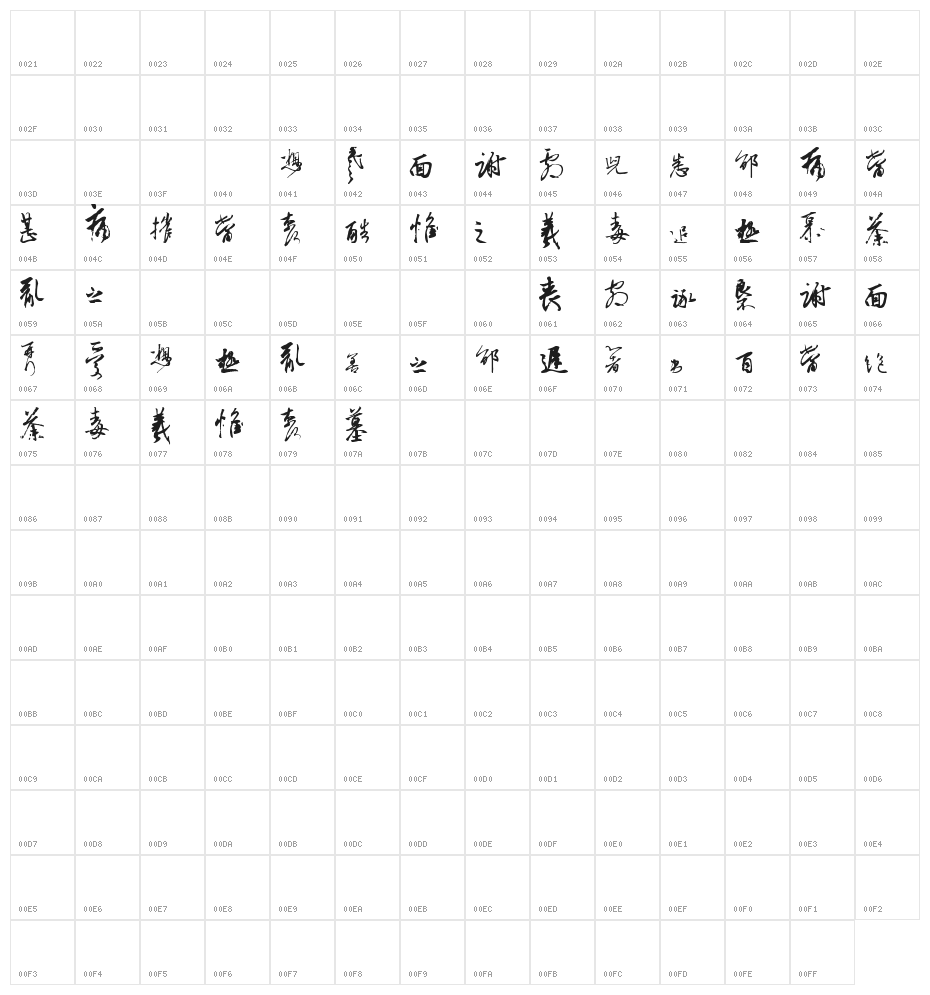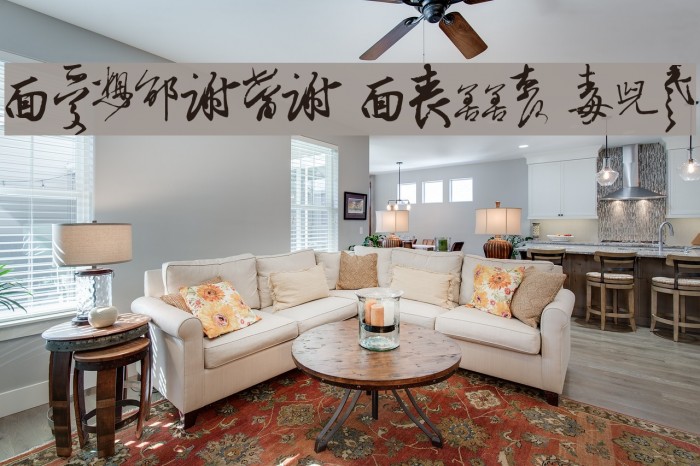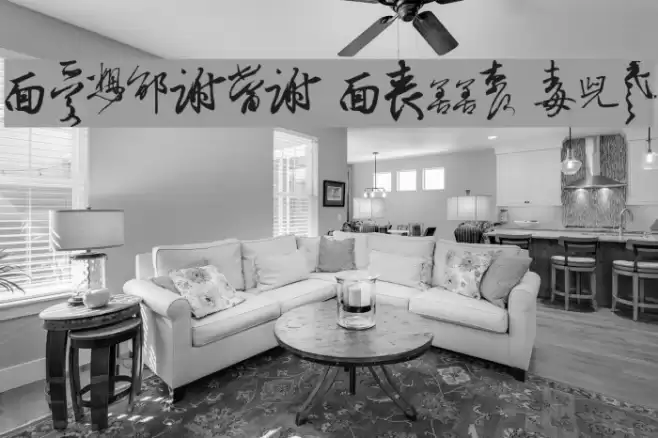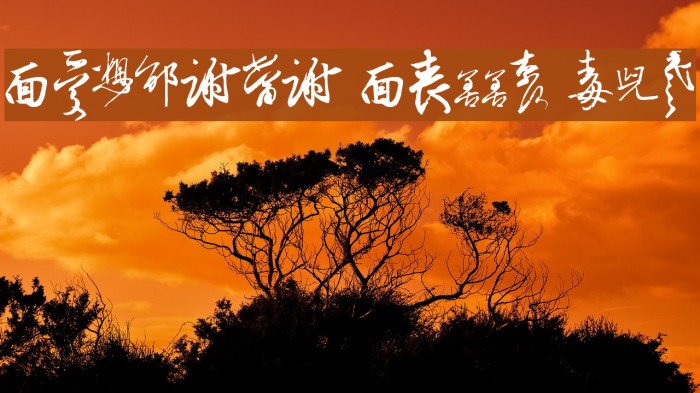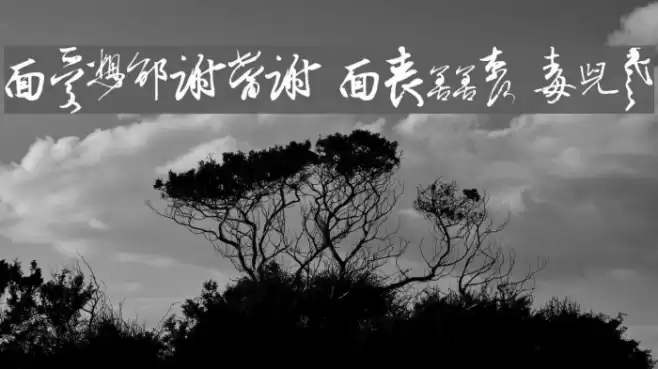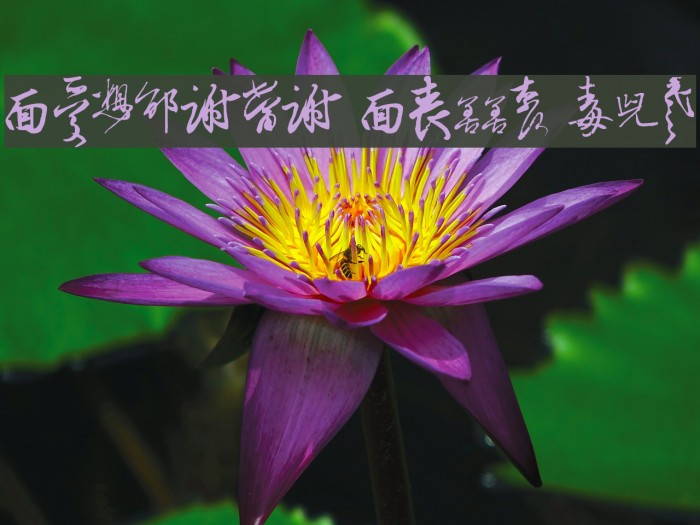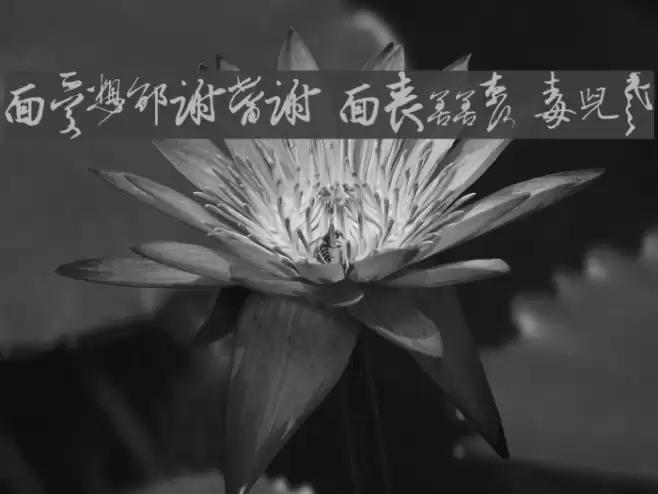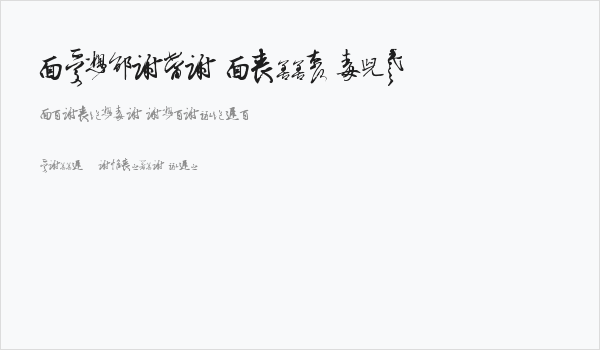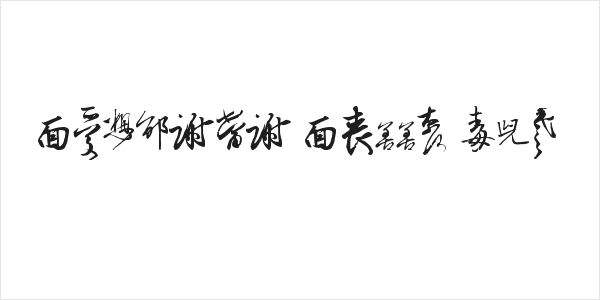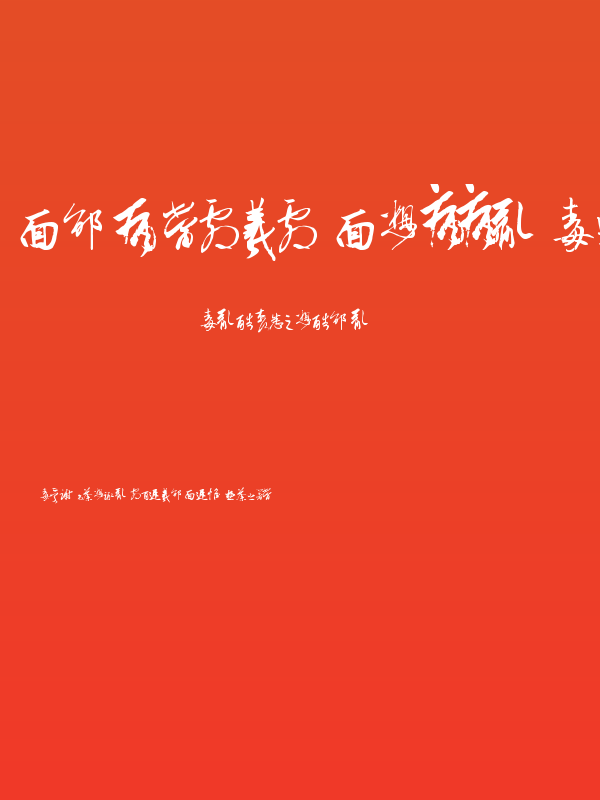
Chinese Cally TFB Font
Chinese Cally TFB Description
This font embodies the essence of traditional Chinese calligraphy with its fluid and expressive strokes. Each character is crafted with a dynamic flow, capturing the elegance and artistry of brush writing. The strokes vary in thickness, creating a lively contrast that adds depth and dimension to the text. The characters are slightly irregular, mimicking the natural hand movements of a calligrapher, which gives the font a personal and authentic feel. The overall appearance is both artistic and sophisticated, making it suitable for projects that require a touch of cultural heritage and artistic flair.
| Use Case | Logos, Artistic projects, Invitations |
| Proposed Projects | Ideal for cultural projects, artistic designs, invitations, and any work that seeks to incorporate traditional Chinese aesthetics. |